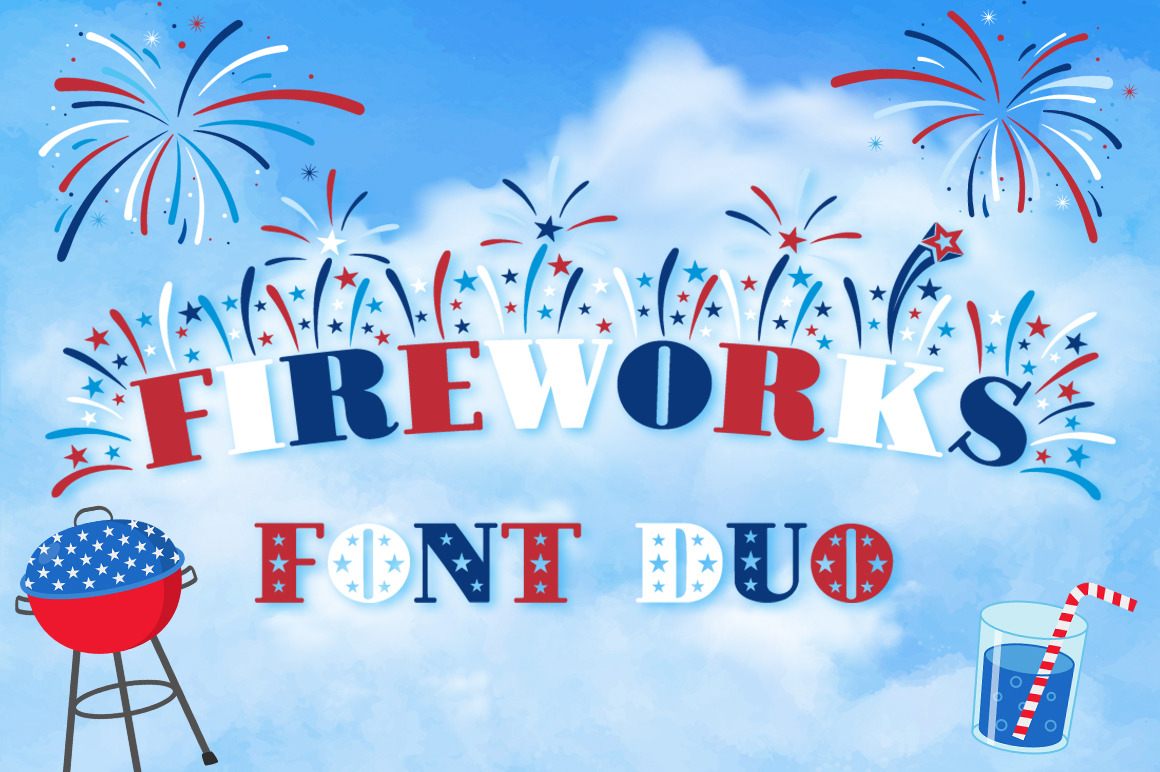
Fireworks 4th of July Font & Bonus S
All the fonts in this bundle are created from scratch, using as little points as possible to ensure you get the best results with minimum difficulty. Optimized for Crafters with Cricut Design Space, Silhouette Studio, ScanNCut, and all major brands. The cutting takes much less time because the number of points in each letter is reduced to a minimum!
- Fireworks Regular
- Fireworks Left
- Fireworks Right
- Bonus extras at following glyphs: @ # $ % ^ &
- Star-Studded Font